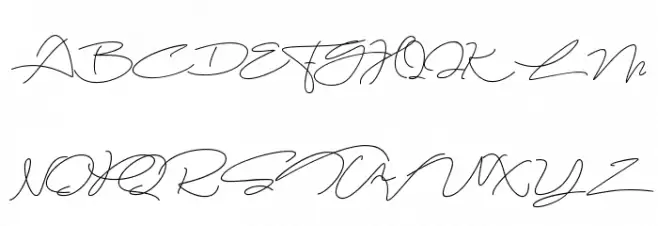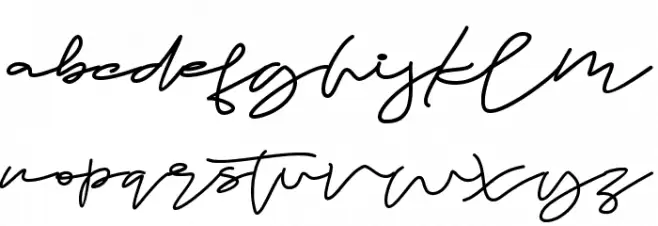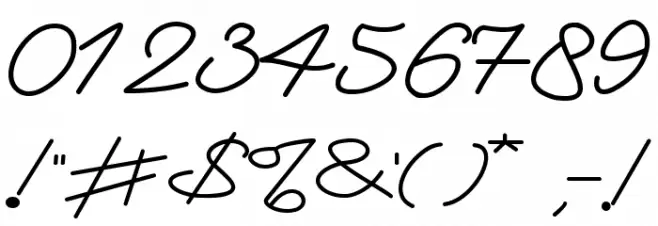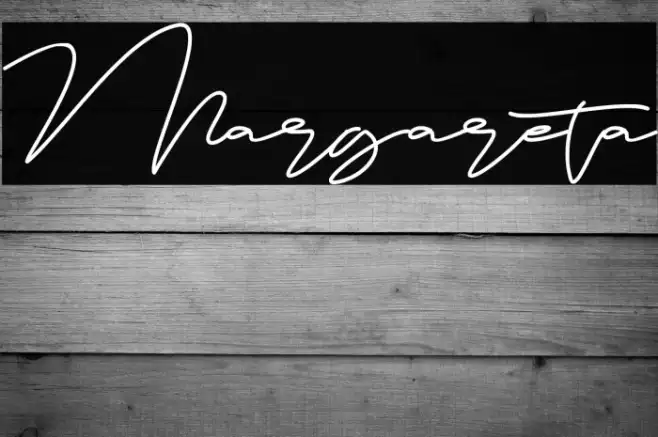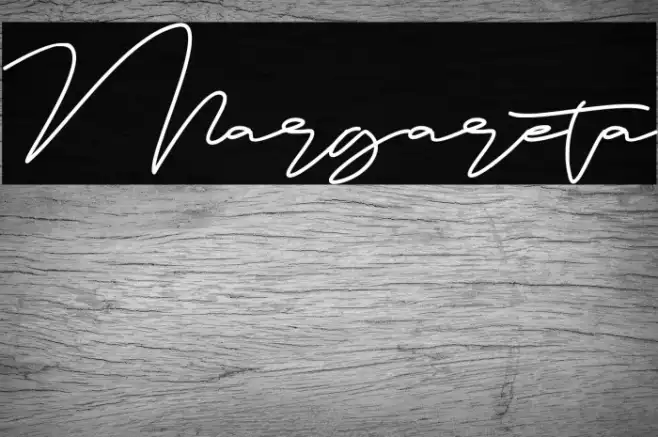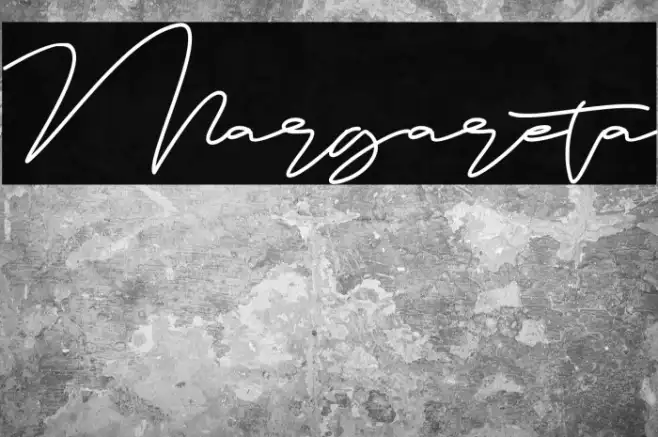
Margareta Font
Margareta Description
This font exudes a modern and elegant handwritten style, characterized by its fluid and continuous strokes. The uppercase letters are delicately intertwined, creating a sense of movement and grace. The lowercase letters maintain a consistent flow, with some letters featuring distinctive loops and curves that add personality. The numerals are clear and stylish, complementing the overall aesthetic. Special characters are thoughtfully designed, maintaining the font's cohesive look. This font is perfect for projects that require a personal touch, such as invitations, branding, and creative designs.
A modern, elegant handwritten font with fluid strokes and graceful curves.
- Proposed Projects: Ideal for wedding invitations, personal branding, greeting cards, and artistic projects.
- Category: Handwritten
- Use Case: Logos, Invitations, Artistic designs